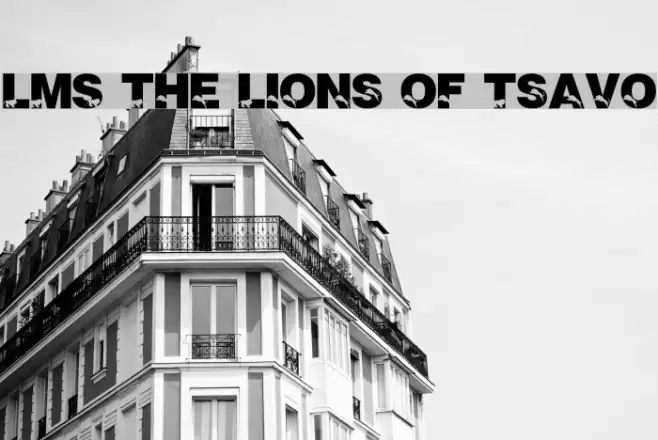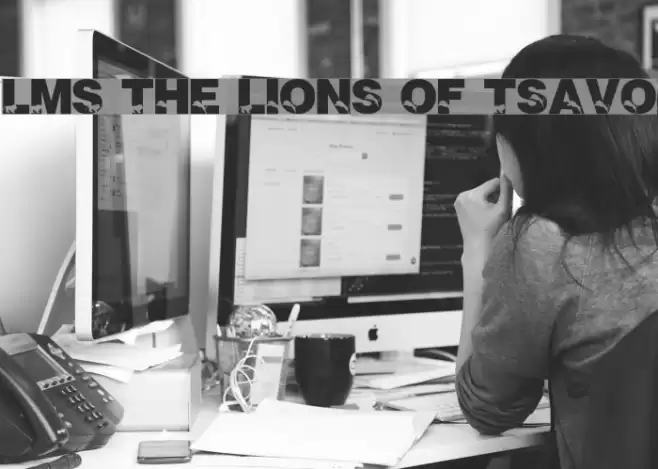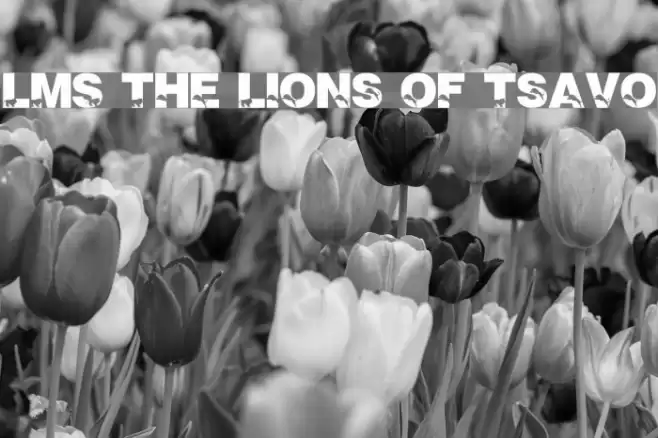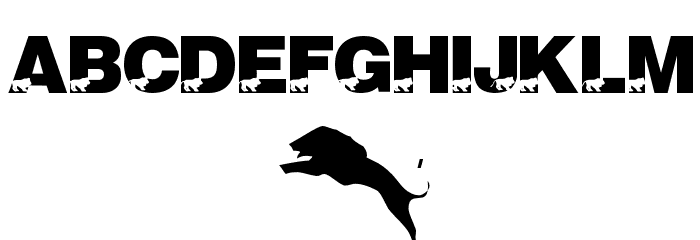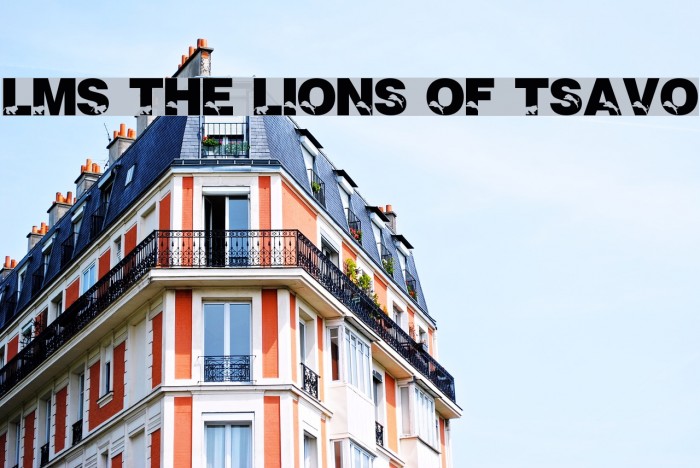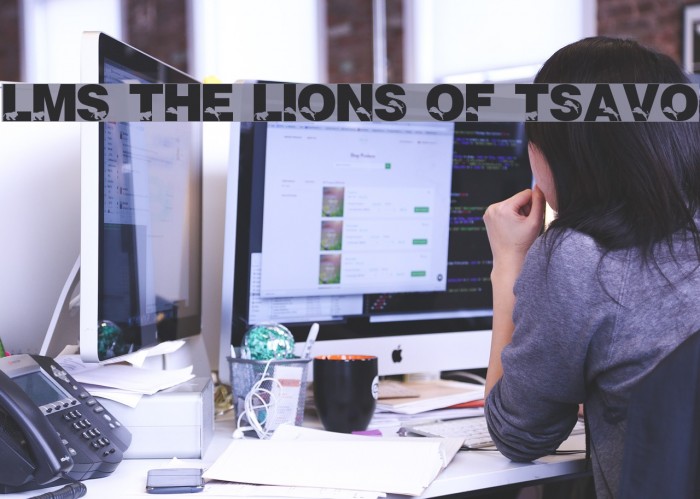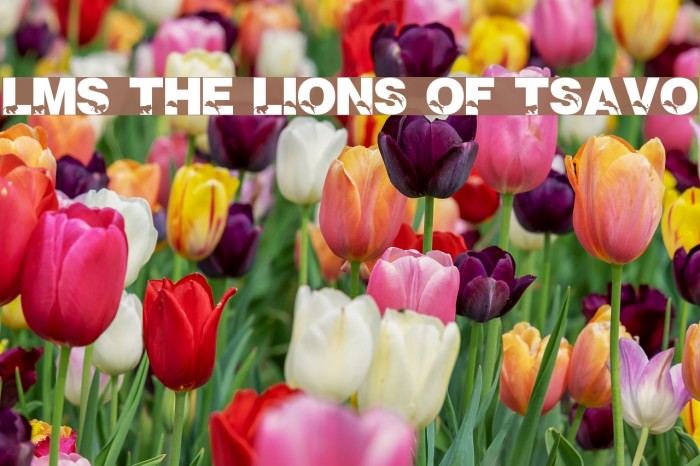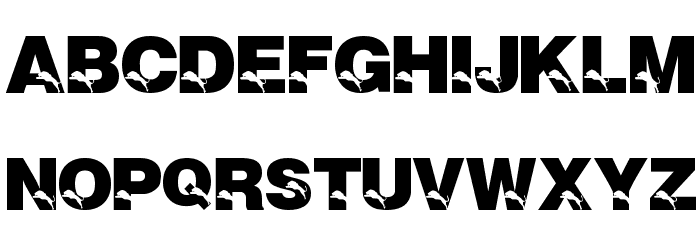
LMS The Lions of Tsavo Font
LMS The Lions of Tsavo Description
This font features a bold, decorative style with a unique twist. Each character is infused with a silhouette of a lion, creating a striking visual effect that captures attention. The letters are uppercase and maintain a consistent weight throughout, emphasizing their boldness. The lion silhouettes are cleverly integrated into the bottom of each letter, adding a dynamic and thematic element. This font is perfect for projects that require a strong, thematic presence, such as wildlife-related branding or adventurous event promotions.
A bold, decorative font with integrated lion silhouettes in each letter from Uncategorized fonts.
- Proposed Projects: Ideal for wildlife-themed branding, adventurous event promotions, or any project needing a bold, thematic font.